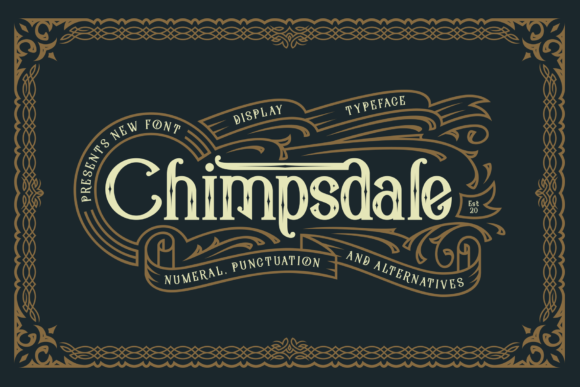
Introducing Chimpsdale Font: The Magical Retro Serif Font for Your Creative Projects
Are you looking for a font that combines the charm of old-fashioned typography with a modern twist? Look no further than Chimpsdale Font, a magical and retro-looking serif font that’s perfect for a wide range of creative projects. In this article, we’ll explore the features and benefits of Chimpsdale Font, and show you how to make the most of this versatile and stylish font.
What is Chimpsdale Font?
Chimpsdale Font is a serif font that’s designed to evoke the nostalgia of a bygone era, while still feeling fresh and modern. With its unique blend of classic and contemporary elements, Chimpsdale Font is perfect for projects that need a stylish and old-fashioned vibe with a modern twist. Whether you’re designing a logo, creating apparel designs, or crafting marketing materials, Chimpsdale Font is the perfect choice.
Key Features of Chimpsdale Font
So what makes Chimpsdale Font so special? Here are just a few of its key features:
- Retro aesthetic: Chimpsdale Font has a distinctly retro feel, with classic serif elements and a nostalgic charm that’s hard to resist.
- Modern twist: Despite its old-fashioned vibe, Chimpsdale Font also has a modern edge that’s perfect for contemporary design projects.
- Versatile: Chimpsdale Font can be used for a wide range of projects, from logos and apparel designs to marketing materials and product packaging.
- Easy to read: Despite its ornate serifs, Chimpsdale Font is surprisingly easy to read, making it perfect for body text as well as headlines.
Use Cases for Chimpsdale Font
So what can you use Chimpsdale Font for? The possibilities are endless! Here are just a few ideas to get you started:
- Logos: Chimpsdale Font is perfect for creating unique and memorable logos that stand out from the crowd.
- Apparel designs: Add a touch of retro charm to your t-shirt designs, hoodies, and other apparel with Chimpsdale Font.
- Marketing materials: Use Chimpsdale Font to create eye-catching brochures, flyers, and other marketing materials that grab attention.
- Product packaging: Add a touch of elegance and sophistication to your product packaging with Chimpsdale Font.
- Signage: Chimpsdale Font is perfect for creating eye-catching signs and displays that stand out from the crowd.
Tips for Using Chimpsdale Font
Here are a few tips for getting the most out of Chimpsdale Font:
- Experiment with sizes: Chimpsdale Font looks great in a variety of sizes, from large headlines to smaller body text.
- Play with colors: Try pairing Chimpsdale Font with a range of colors to create different moods and effects.
- Mix and match: Combine Chimpsdale Font with other fonts to create unique and interesting typography.
- Pay attention to spacing: Make sure to leave enough space between lines and around text to create a clean and elegant look.
Chimpsdale Font is a magical and retro-looking serif font that’s perfect for a wide range of creative projects. With its unique blend of classic and contemporary elements, Chimpsdale Font is sure to add a touch of style and sophistication to any design. Whether you’re a designer, crafter, or DIY enthusiast, Chimpsdale Font is a must-have font that’s sure to inspire your creativity.